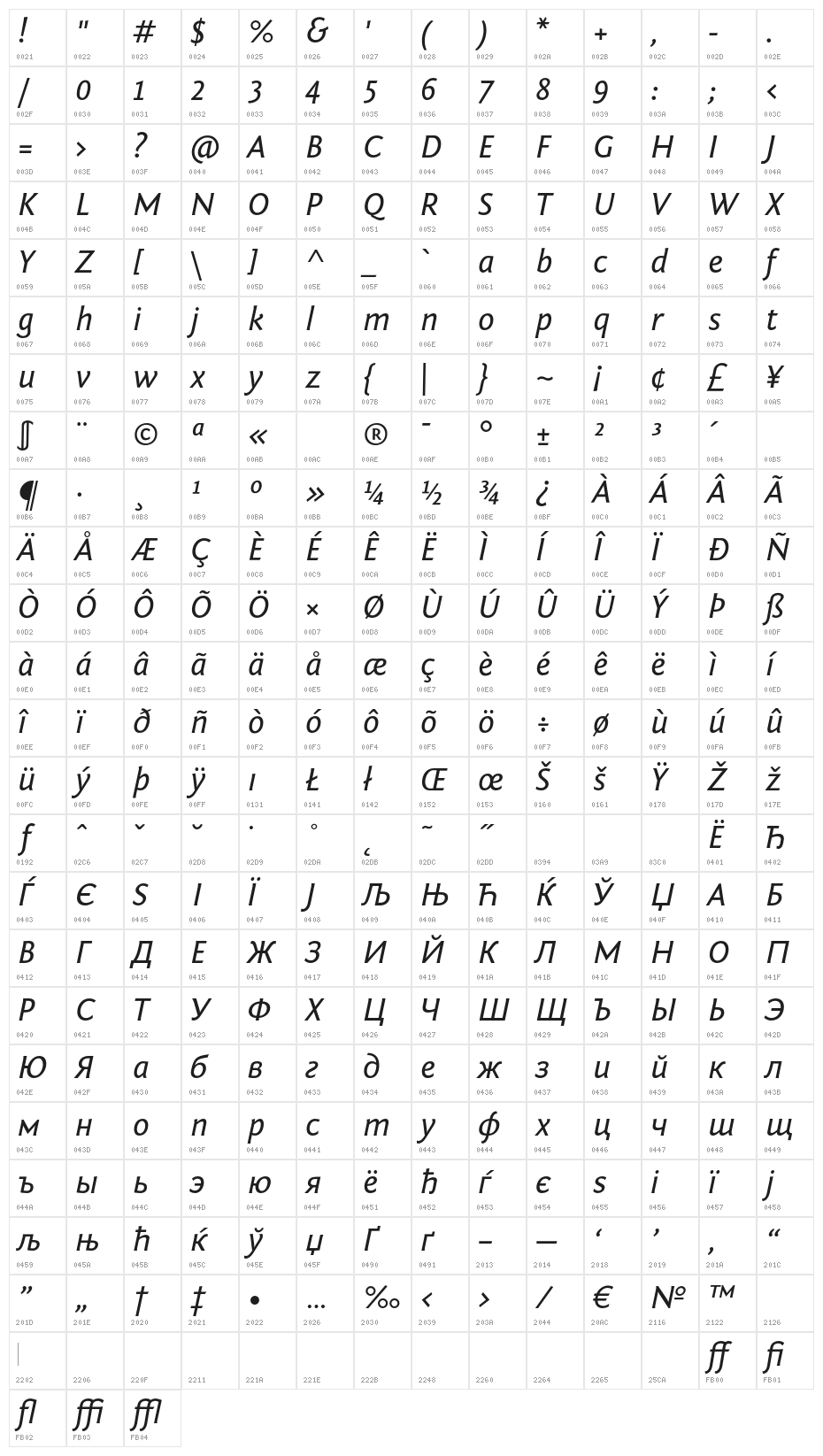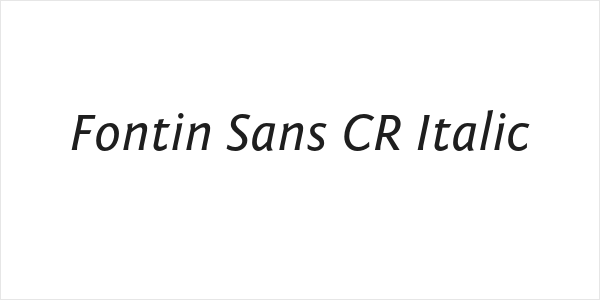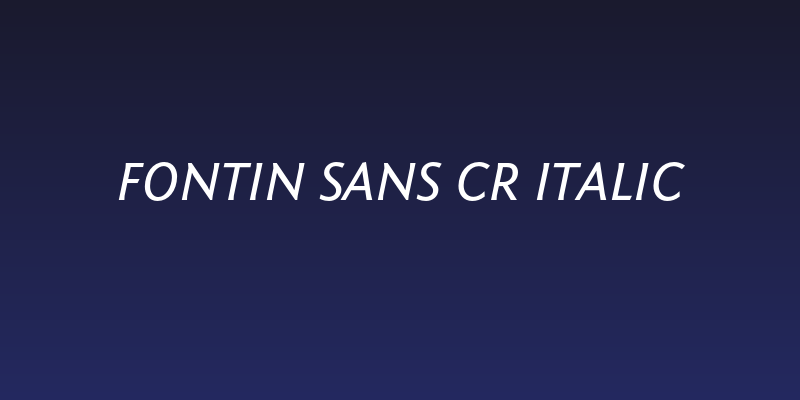
Fontin Sans CR Italic Font
Fontin Sans CR Italic Description
This font features a clean and modern sans-serif style with a slight italic slant, giving it a dynamic and elegant appearance. The characters are well-proportioned, with a consistent stroke width that provides a harmonious and balanced look. The uppercase letters are bold and assertive, while the lowercase letters maintain a friendly and approachable feel. The numerals are clear and legible, making them suitable for various applications. The special characters are distinct and well-integrated into the overall design, ensuring versatility in usage. This font's subtle italicization adds a touch of sophistication, making it ideal for both formal and informal contexts.
Proposed ProjectsIdeal for branding, editorial design, advertising, and digital interfaces where a modern and sophisticated look is desired.